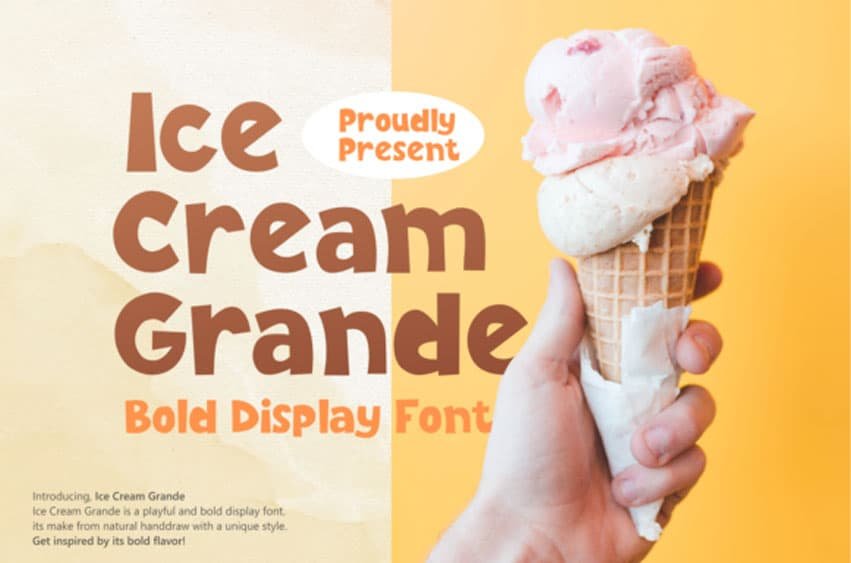
Ice Cream Grande Font is a bold and trendy looking display font.
No matter the topic, this font will be an incredibly asset to your fonts’ library, as it has the potential to elevate any creation.